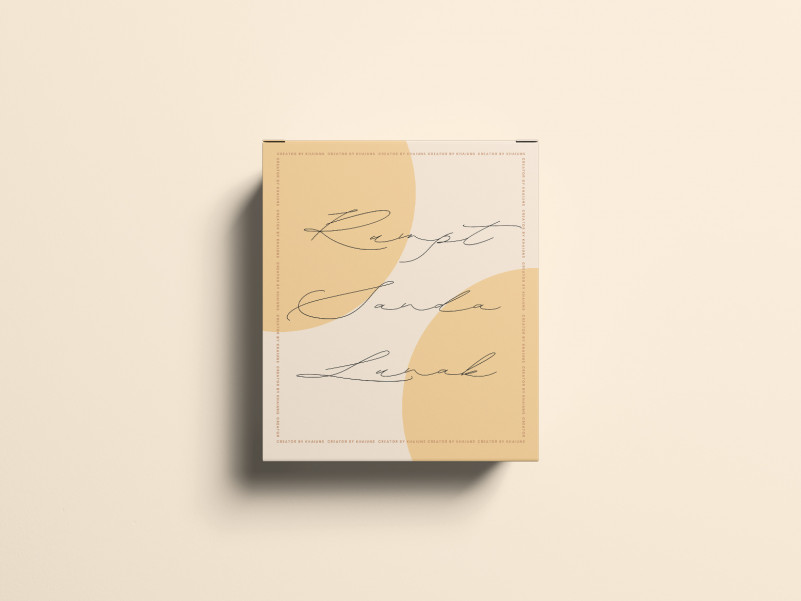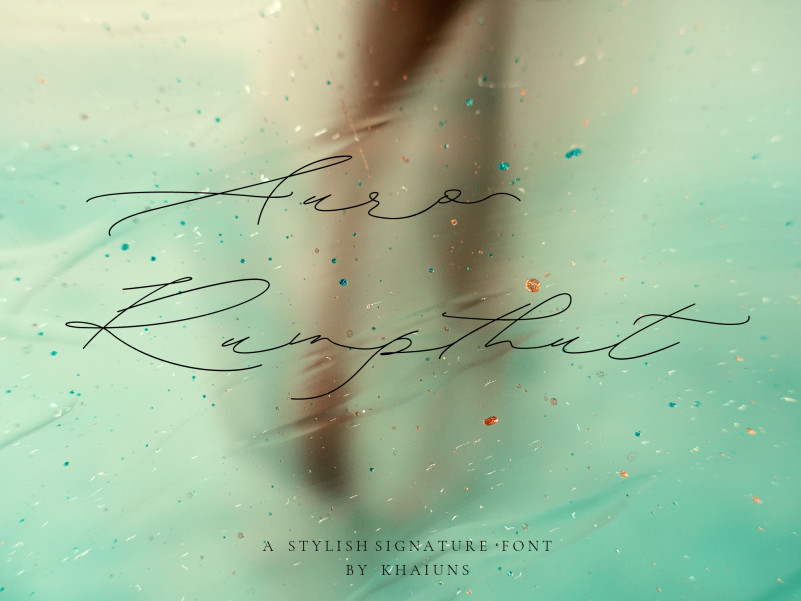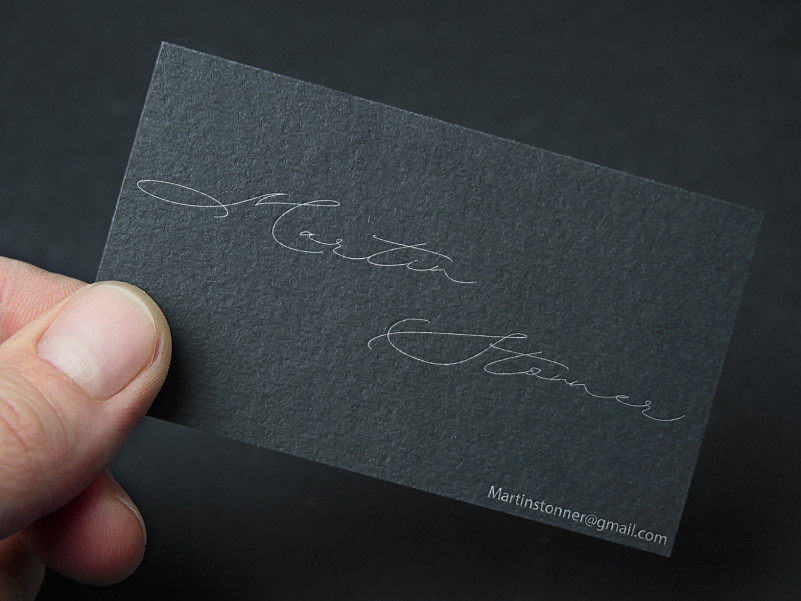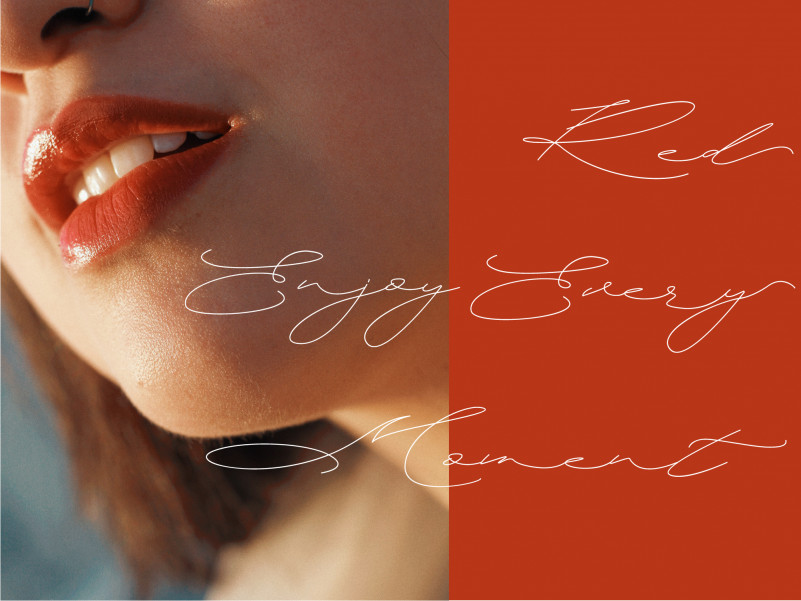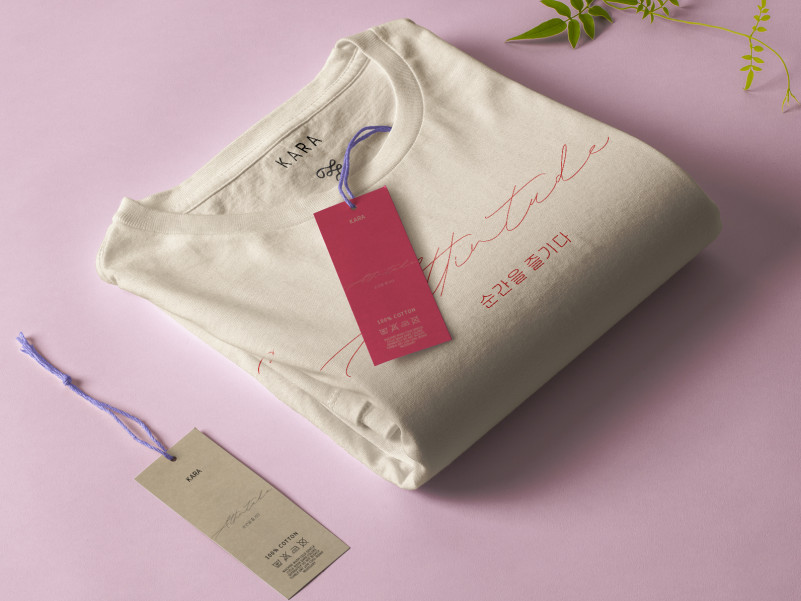
Auro Rumpthut Script Font
Auro Rumpthut Script Font is a modern calligraphy font with contemporary, sophisticated accents. It is perfect for logo, badge, packaging, headline, poster, t-shirt/apparel, greeting card, and wedding invitation. The flowing characters are ideal to make attractive messages